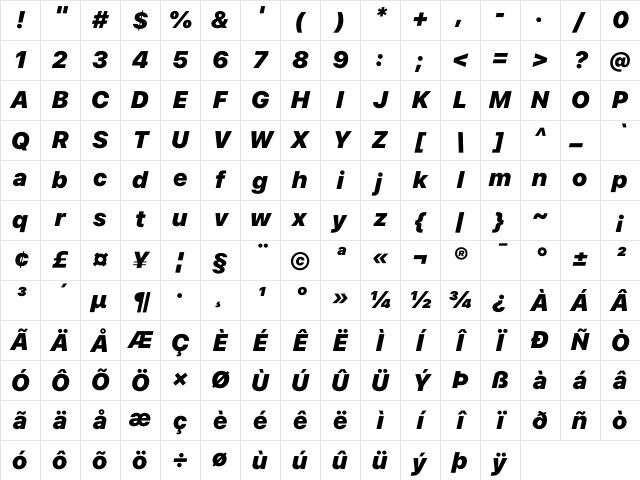
SF Pro Display Black Italic
Foundry: Apple Inc.
Designer: Apple Inc.
Complete SF Pro Display Black Italic glyph index. Displaying only characters natively supported by SF Pro Display Black Italic font.
Design Context for SF Pro Display
SF Pro Display is built around its visual character rather than neutral utility - its distinctive forms are designed to make an impression at display sizes. The slanted form adds forward momentum and visual energy.
Font Pairing: Pair with a clean neutral sans-serif for body copy to let SF Pro Display's character lead without overwhelming the composition.
Pro Tip: Use SF Pro Display exclusively at display sizes - it was designed to be seen, not read at length. Let a neutral companion handle body copy.